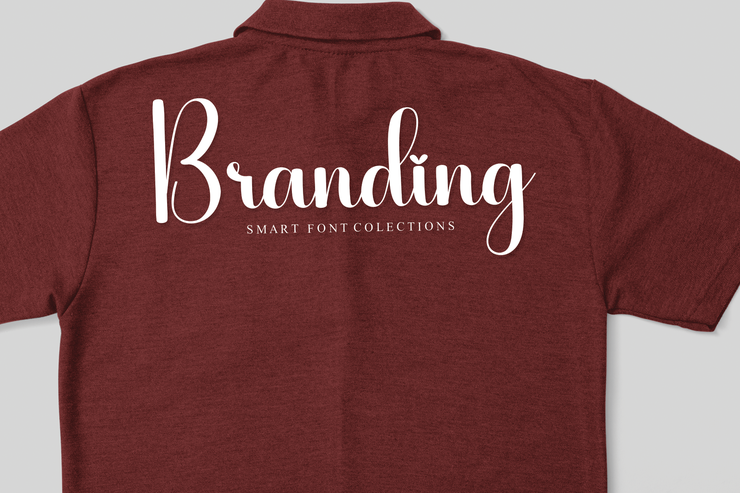
orward Artistic Stylish English Decorative Font
Forward is a distinctive artistic decorative English font with creative and stylish letter structures. It features unique stroke details, sleek lines and well‑balanced glyph proportions, delivering a modern, dynamic and eye‑catching visual style. This artistic font combines bold personality with elegant textures, suitable for various creative design scenarios including brand logos, fashion posters, web headlines, social media graphics, product packaging and decorative typography. Complete with full uppercase and lowercase letters, it is highly scalable and easy to customize colors, sizes and layouts without losing artistic details. Perfect for graphic designers, creative studios and commercial branding projects to add unique stylish charm to all kinds of design works.Free for Commercial Use / No Copyright